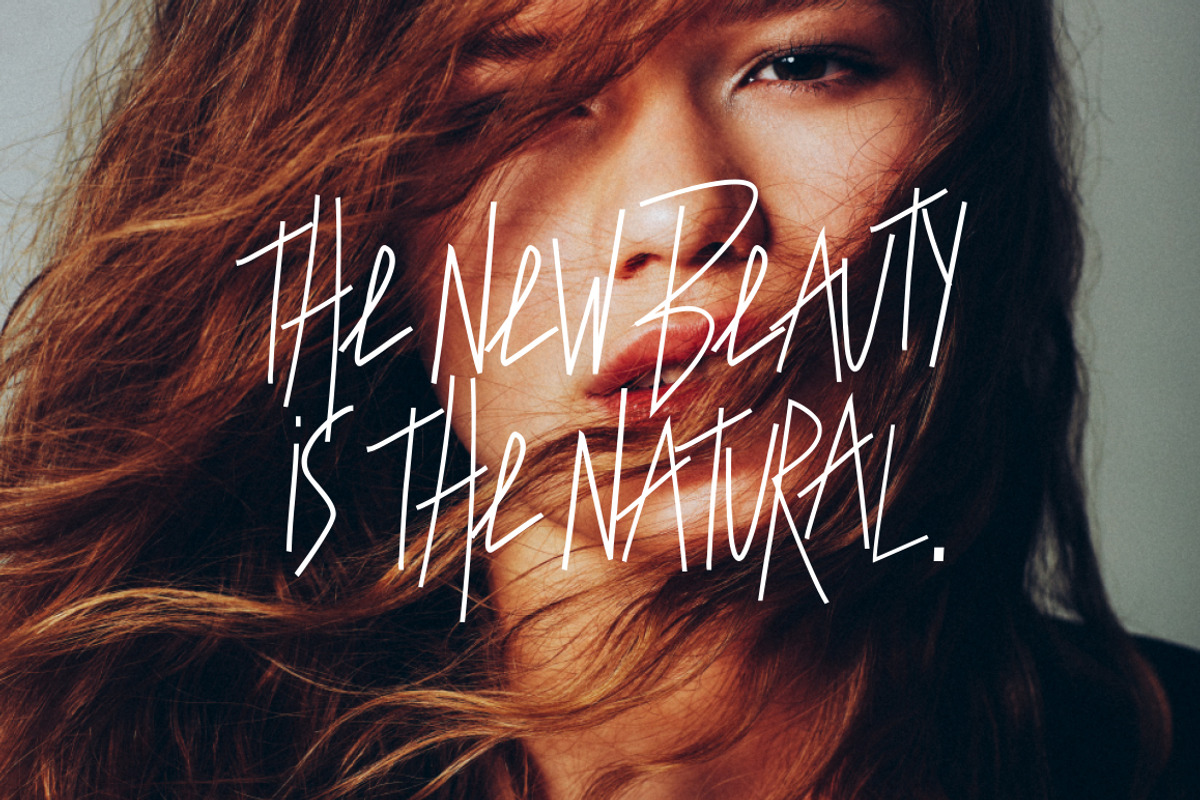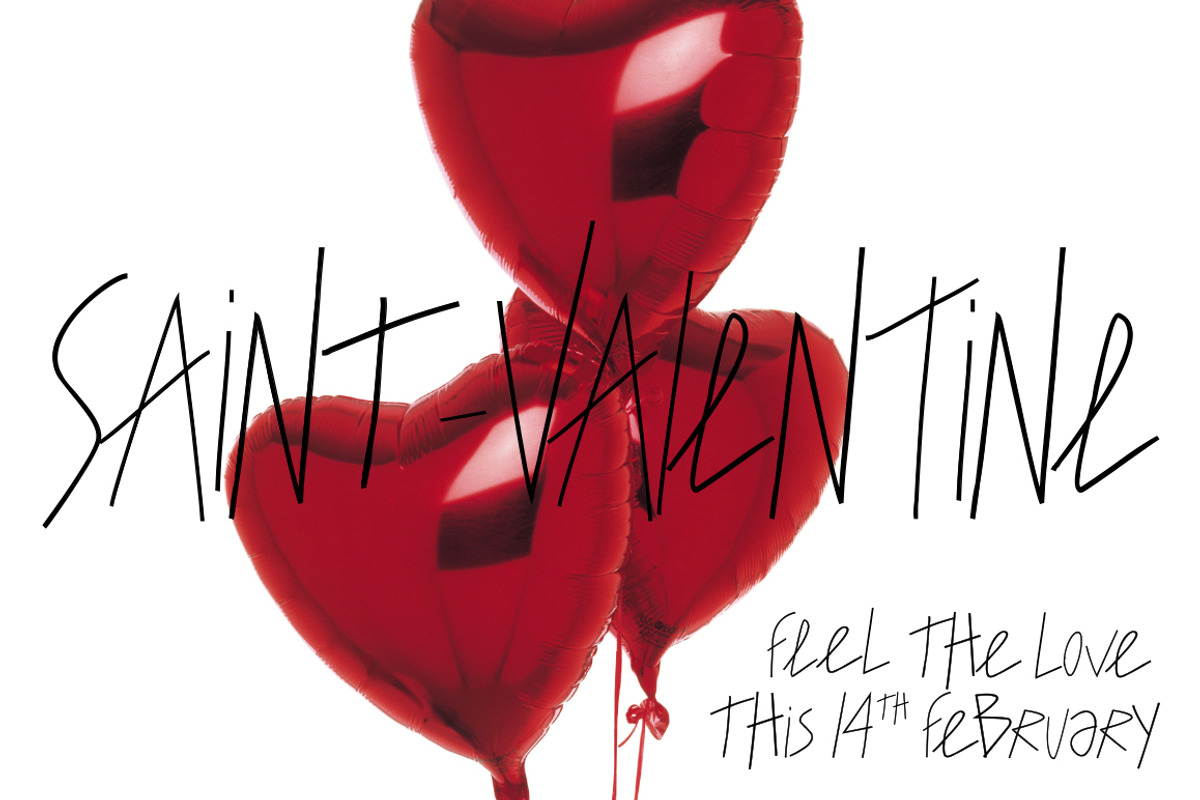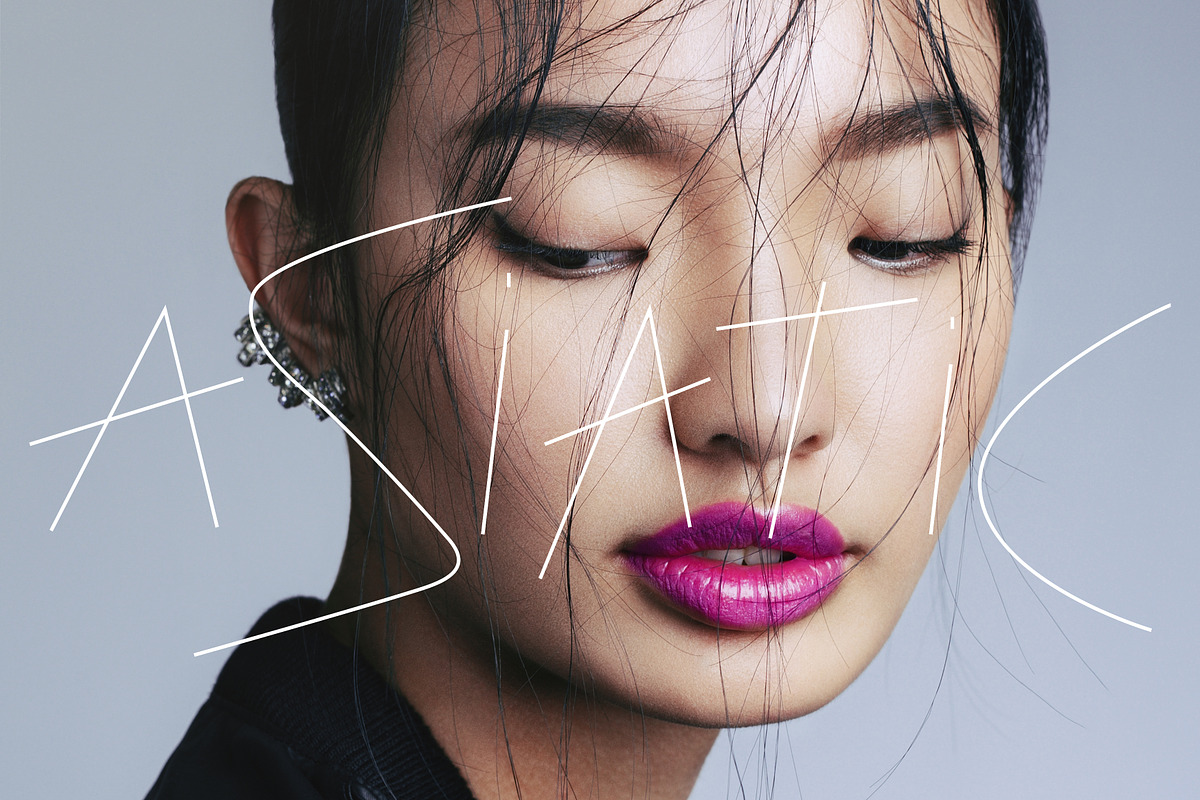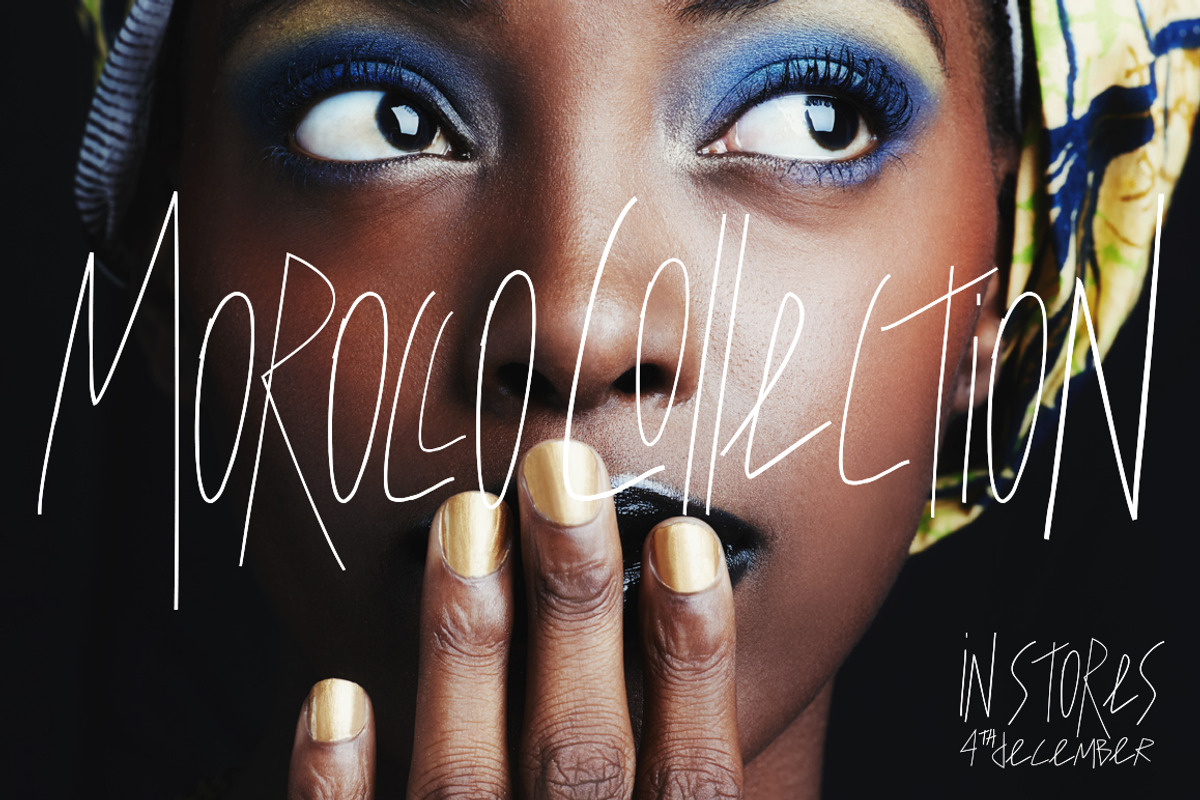
Metamorphosis Font
Metamorphosis Font by Solace is a font selected for branding, posters, packaging, typography.
- Metamorphosis Condensed • A handwritten script font containing upper & lowercase characters, numerals and a large range of punctuation.
- Metamorphosis Regular
- Metamorphosis Disorder Regular
Metamorphosis Font by Solace fits naturally into Branding, posters, packaging, typography.